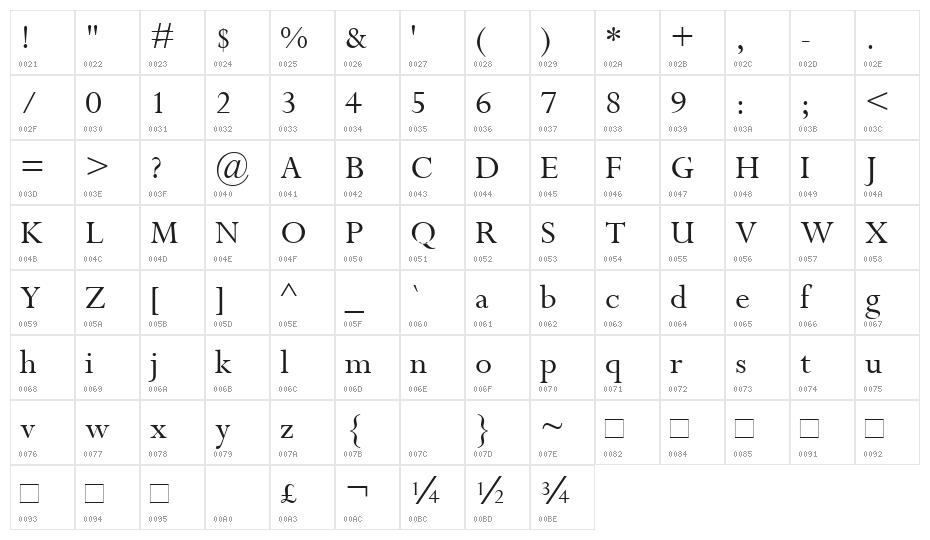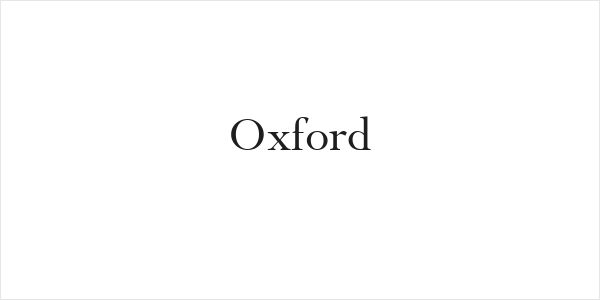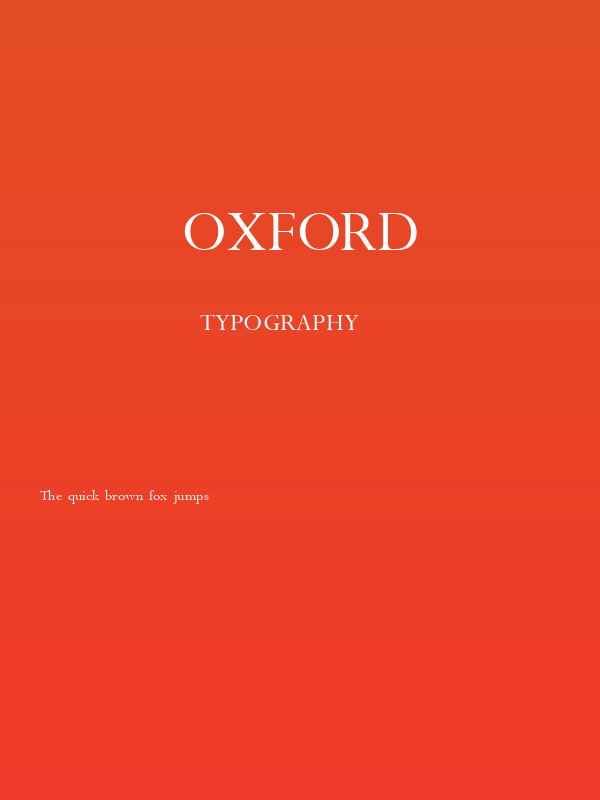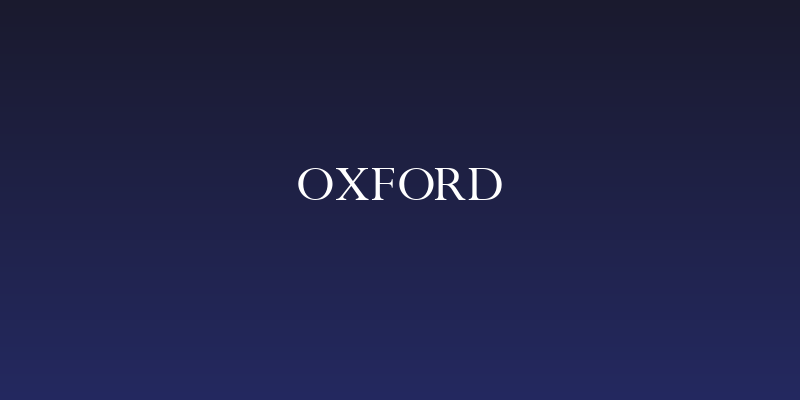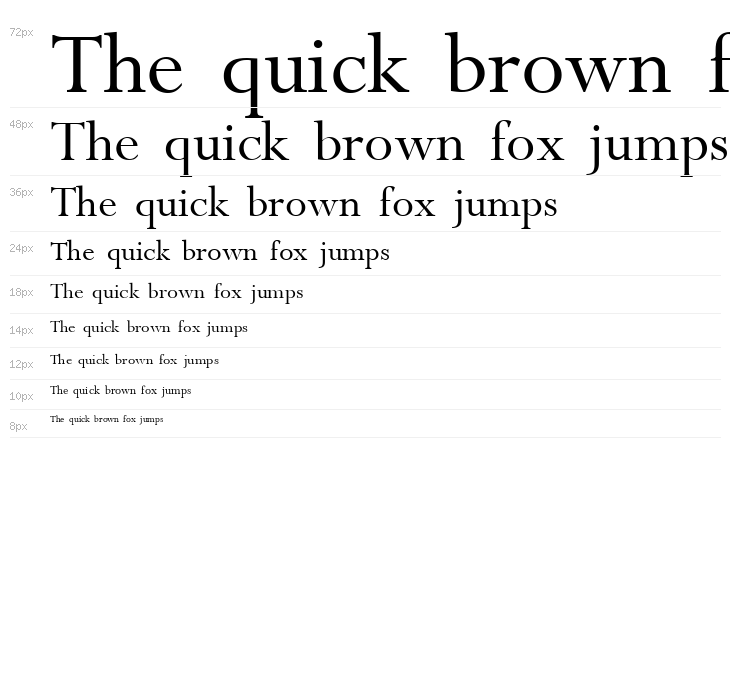
Oxford Font
Oxford Description
This font exudes a classic elegance with its refined serif style. The characters are well-proportioned, featuring a harmonious balance between thick and thin strokes, which enhances readability while maintaining a sophisticated appearance. The uppercase letters are stately and commanding, while the lowercase letters offer a smooth, flowing continuity. The numerals are clear and distinct, making them suitable for both formal and informal contexts. Special characters are crafted with precision, adding to the font's versatility. Overall, this font is ideal for projects that require a touch of tradition and class.
Overall StyleClassic
Proposed ProjectsIdeal for book covers, formal invitations, branding, and editorial design.